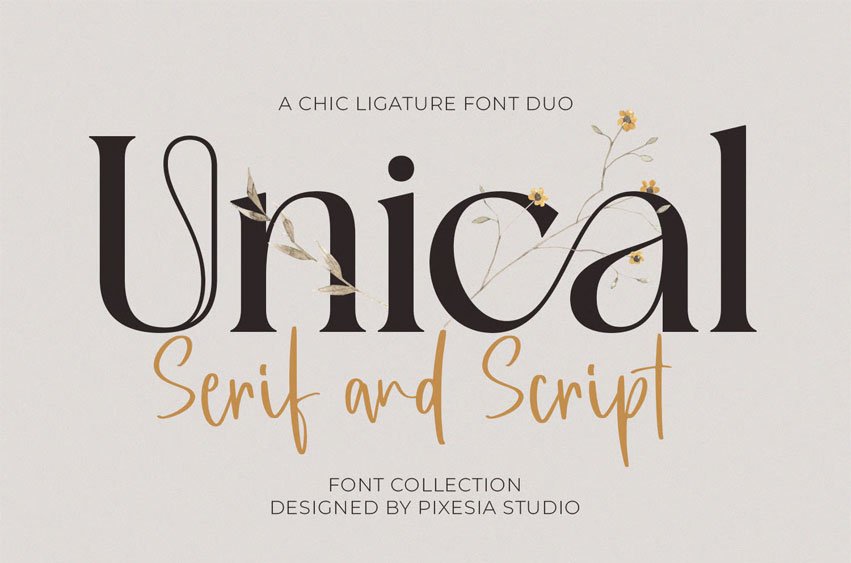
Unical Font is a modern luxury font featuring sleek, sophisticated characters that blend contemporary style with timeless elegance.
Ideal for high-end designs and headlines, this font adds a touch of refinement to any project. This beautiful font is available in two styles (Serif and Script).
- Stylistic Alternates
- Uppercase and Lowercase letters
- Numbering and Punctuations